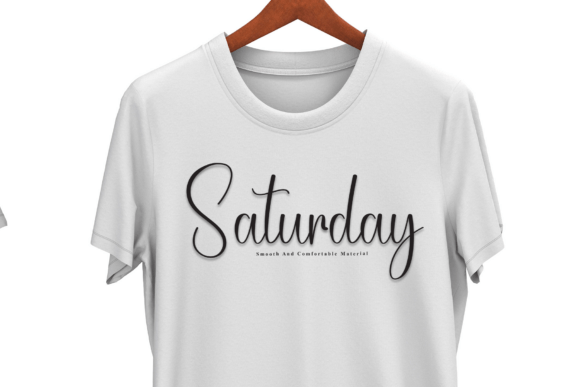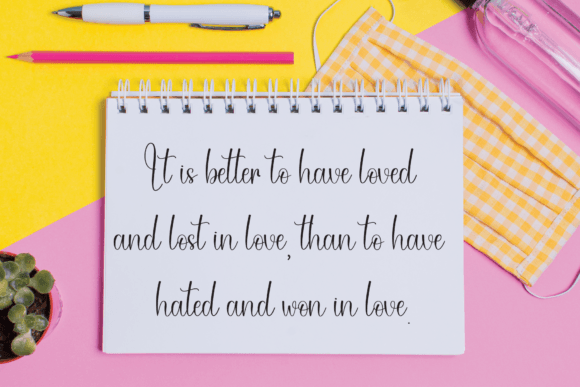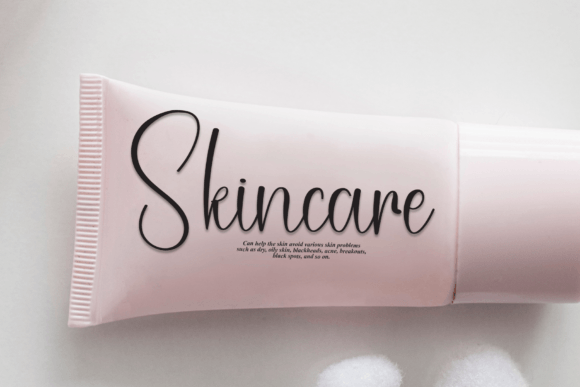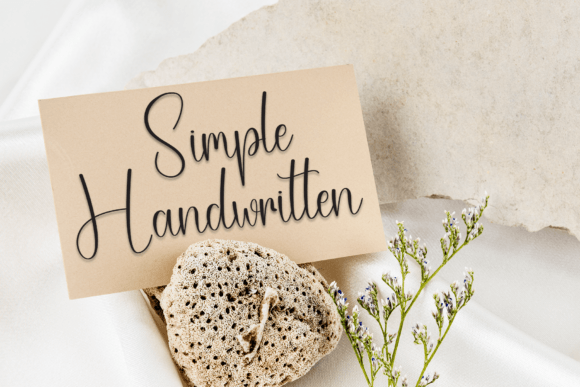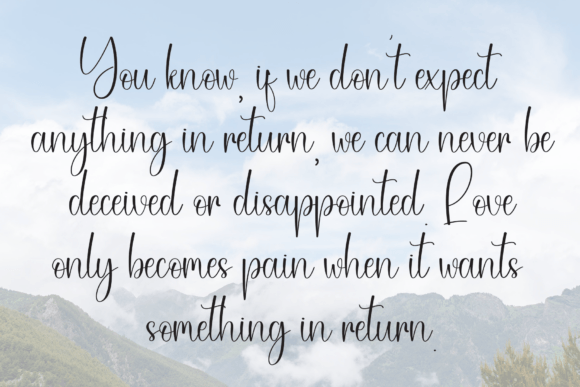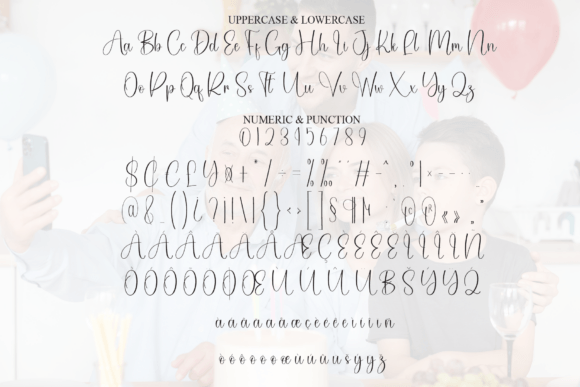
Daddy Birthday Font: Elevate Your Designs with Elegance and Charm
Are you looking for a font that adds a touch of sophistication and warmth to your designs? Look no further than the Daddy Birthday Font, a stylish handwritten script font that exudes elegance and charm with its flowing, graceful curves. In this article, we’ll dive into the features and benefits of this beautiful font, and explore how it can elevate your designs, whether you’re a designer, crafter, or DIY enthusiast.
What is Daddy Birthday Font?
Daddy Birthday Font is a carefully crafted handwritten script font that boasts a unique and distinctive style. Its flowing, graceful curves give it a sense of movement and fluidity, making it perfect for a variety of design applications. Whether you’re creating invitations, logos, branding materials, or any other type of design, this font is sure to add a personal and sophisticated touch.
Key Features of Daddy Birthday Font
- Handwritten Script Style: Daddy Birthday Font features a beautiful handwritten script style that is both elegant and charming.
- Flowing Curves: The font’s flowing curves give it a sense of movement and fluidity, making it perfect for designs that require a touch of sophistication.
- Delicate Strokes: The font’s delicate strokes bring warmth and creativity to your designs, making it ideal for a variety of applications.
- Perfect for Invitations and Branding: Daddy Birthday Font is perfect for creating invitations, logos, and branding materials that require a personal and sophisticated touch.
Benefits of Using Daddy Birthday Font
So why choose Daddy Birthday Font for your designs? Here are just a few benefits of using this beautiful font:
- Adds a Touch of Elegance: Daddy Birthday Font adds a touch of elegance and sophistication to any design, making it perfect for special occasions and formal events.
- Versatile: The font is versatile and can be used for a variety of design applications, from invitations and logos to branding and more.
- Easy to Read: Despite its elegant and cursive style, Daddy Birthday Font is easy to read, making it perfect for designs that require a clear and concise message.
- Unique and Distinctive: The font’s unique and distinctive style sets it apart from other fonts, making it perfect for designers and crafters who want to add a personal touch to their designs.
How to Use Daddy Birthday Font
Using Daddy Birthday Font is easy! Here are a few tips for incorporating this beautiful font into your designs:
- Invitations: Use Daddy Birthday Font to create beautiful and elegant invitations for special occasions, such as birthdays, weddings, and anniversaries.
- Logos and Branding: Use the font to create unique and sophisticated logos and branding materials that reflect your brand’s personality and style.
- DIY Projects: Use Daddy Birthday Font to add a personal touch to your DIY projects, such as crafts, scrapbooking, and more.
Tips and Tricks for Working with Daddy Birthday Font
Here are a few tips and tricks for getting the most out of Daddy Birthday Font:
- Experiment with Different Sizes and Colors: Experiment with different sizes and colors to find the perfect combination for your design.
- Pair with Other Fonts: Pair Daddy Birthday Font with other fonts to create a unique and visually appealing design.
- Use for Headings and Titles: Use the font for headings and titles to add a touch of elegance and sophistication to your design.
In conclusion, Daddy Birthday Font is a beautiful and elegant handwritten script font that is perfect for designers, crafters, and DIY enthusiasts. Its flowing curves, delicate strokes, and sophisticated style make it ideal for a variety of design applications, from invitations and logos to branding and more. With its ease of use and versatility, Daddy Birthday Font is sure to become a go-to font for anyone looking to add a touch of elegance and charm to their designs.